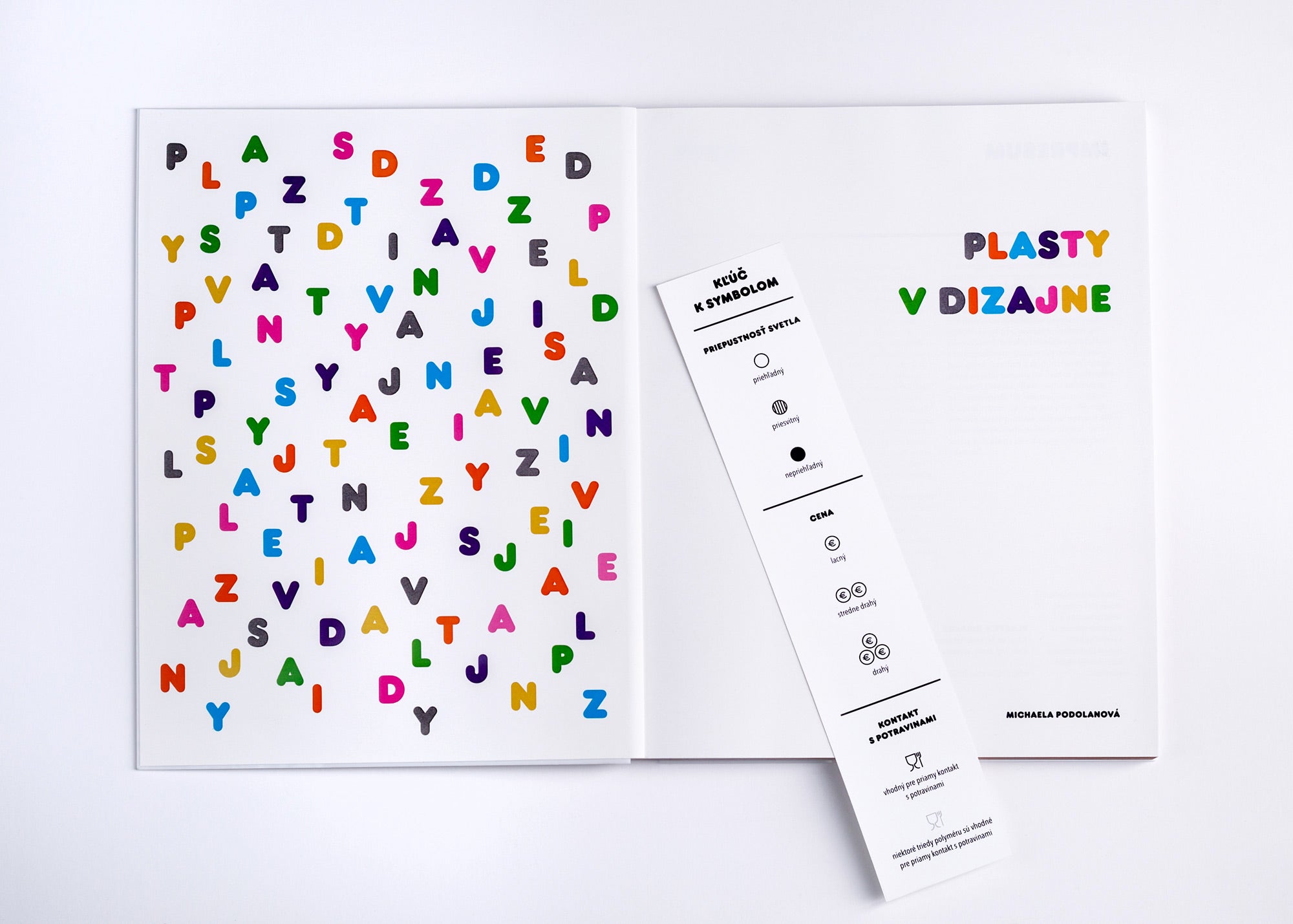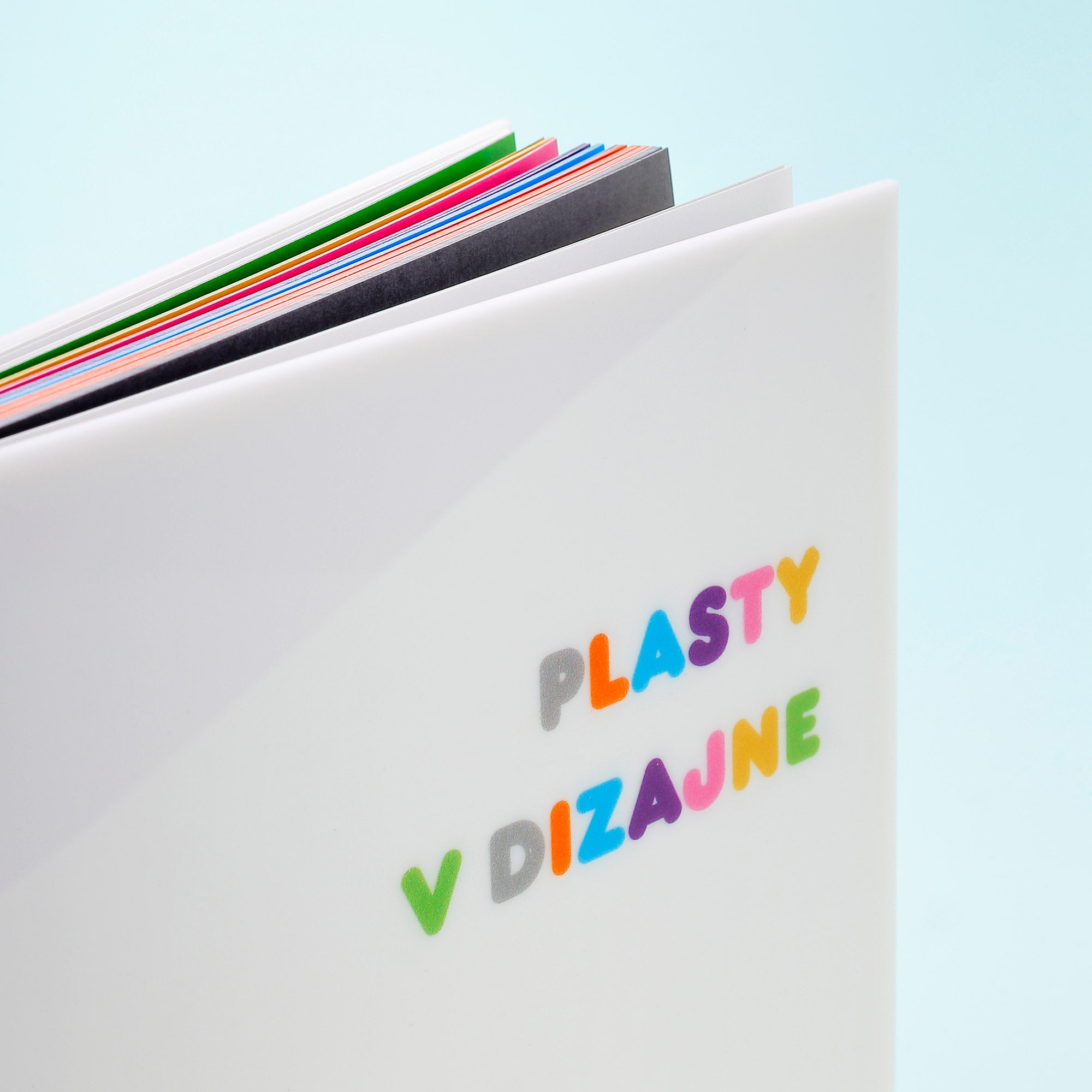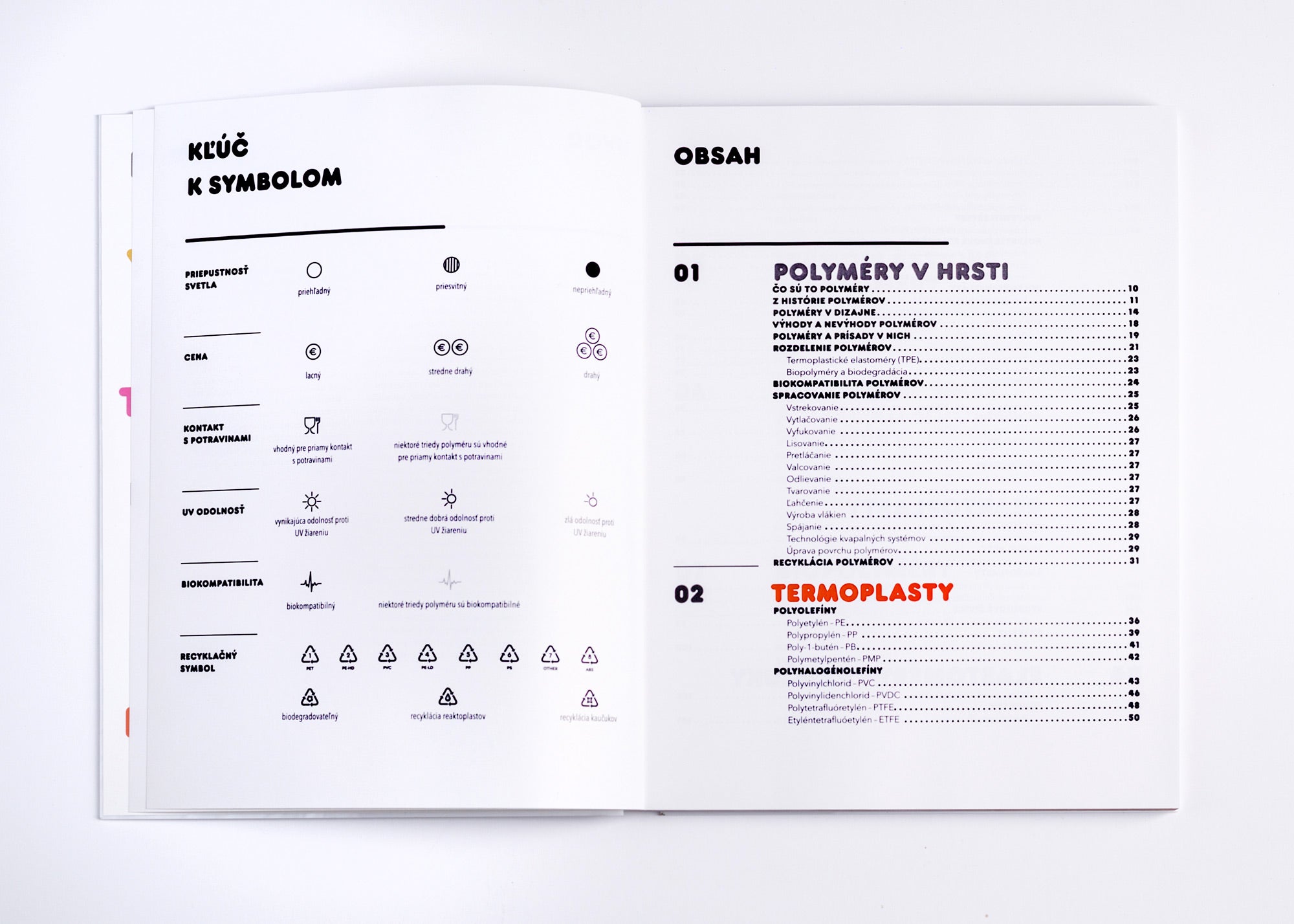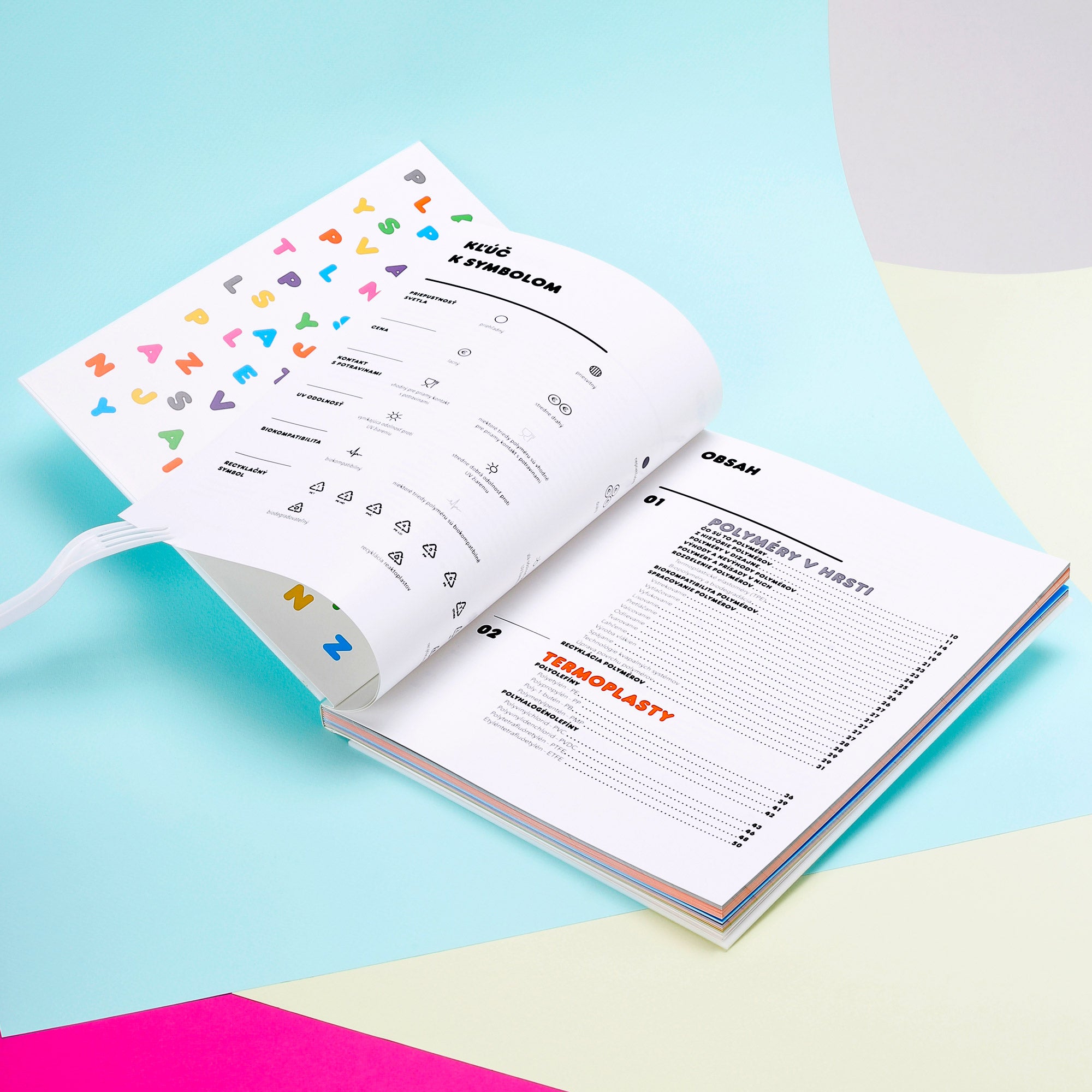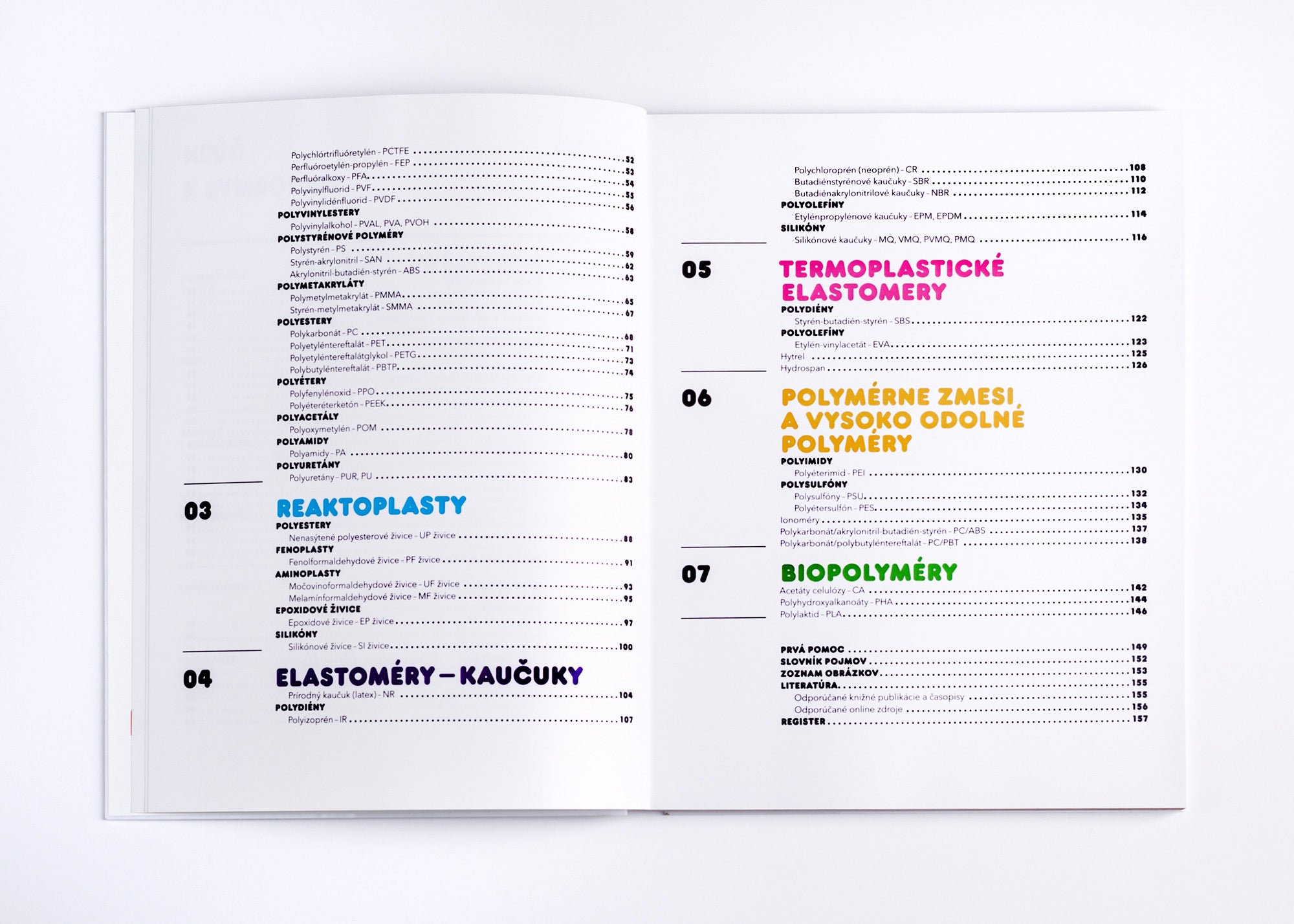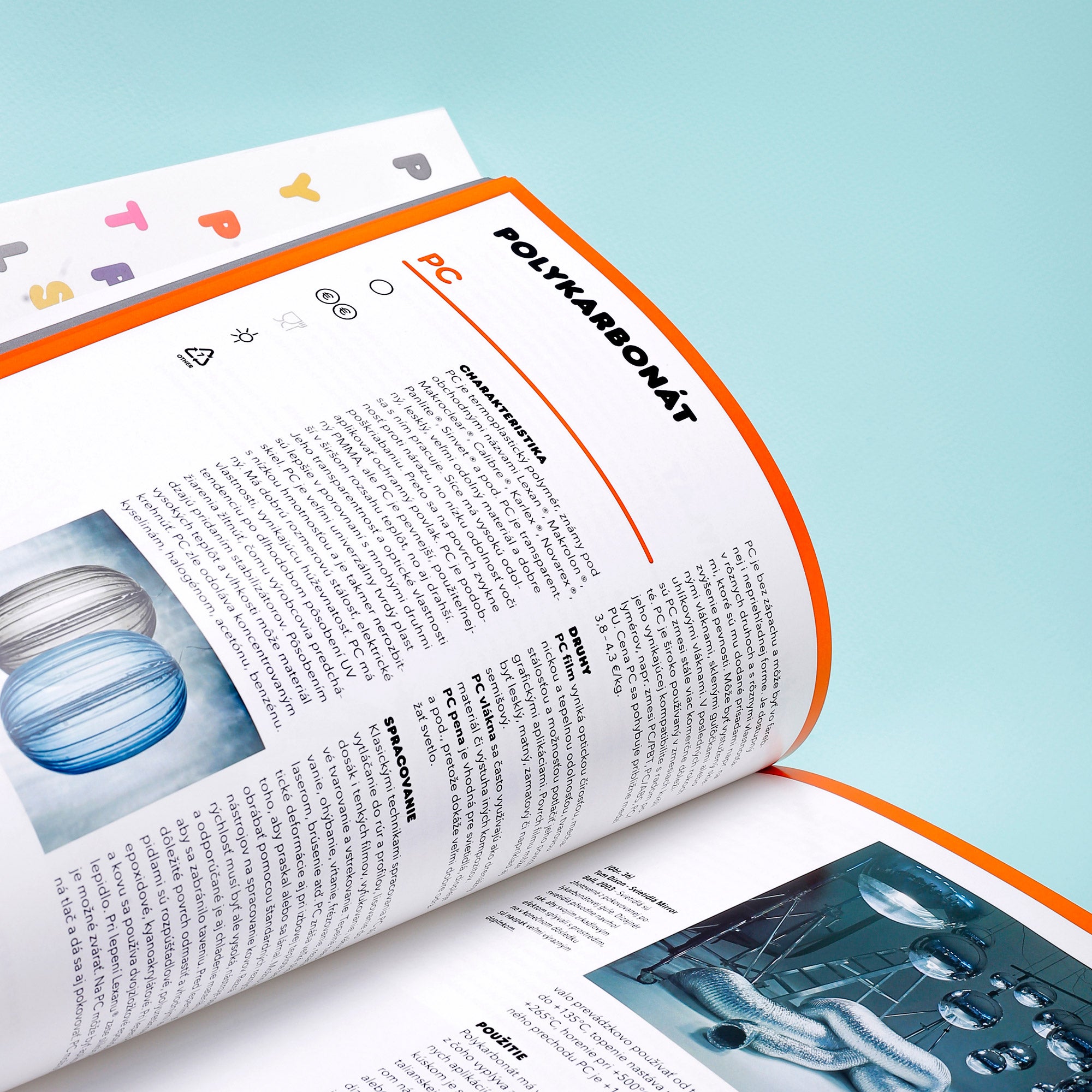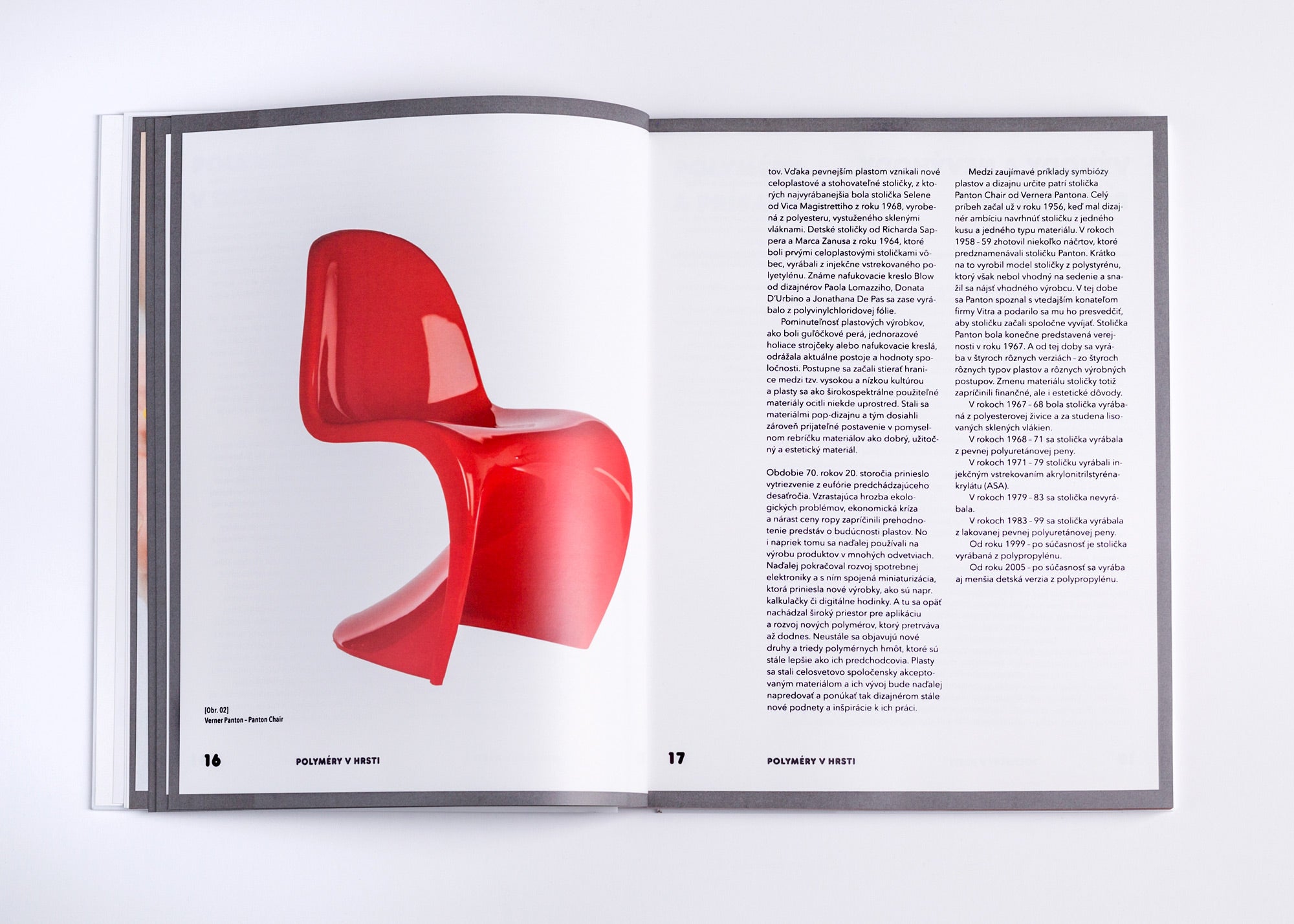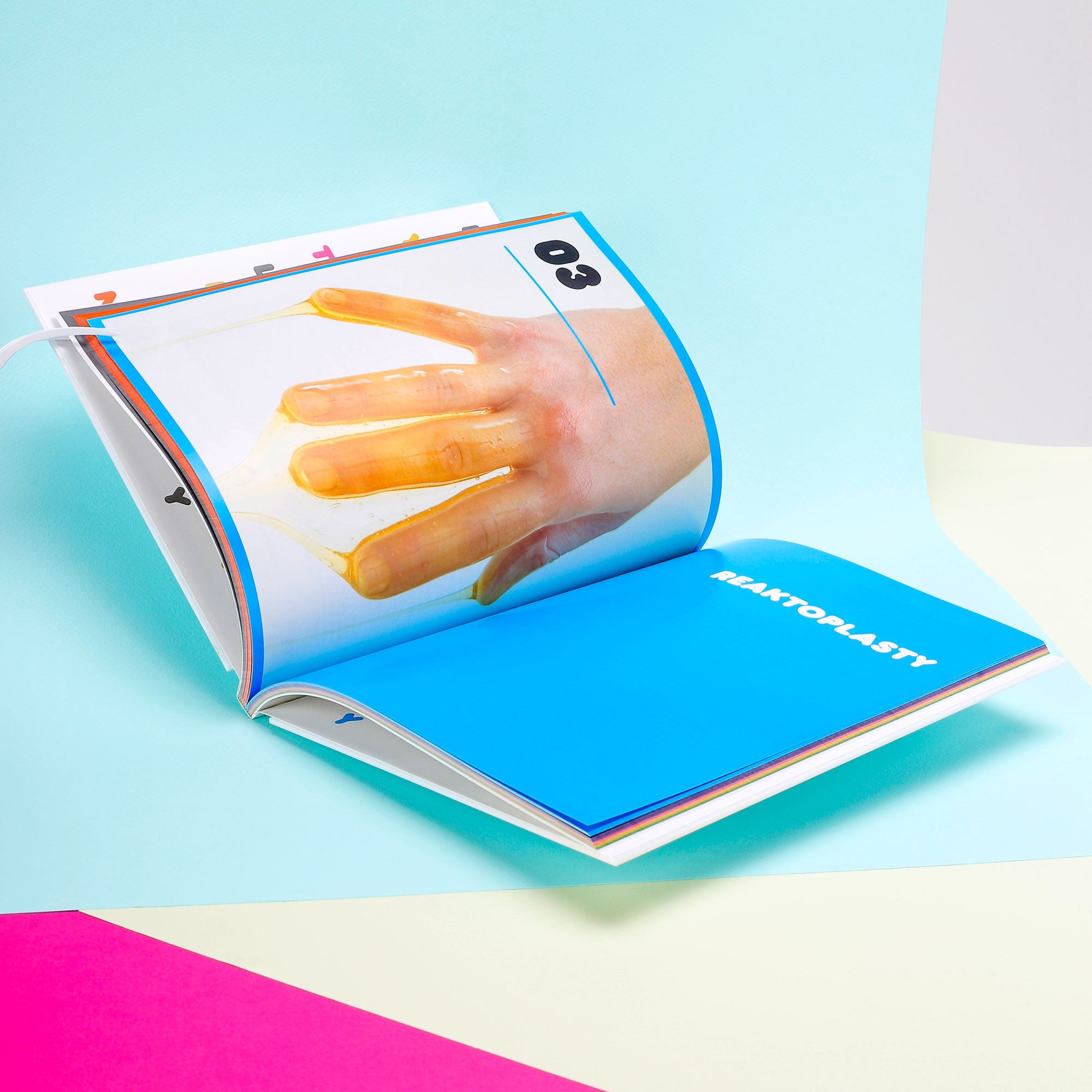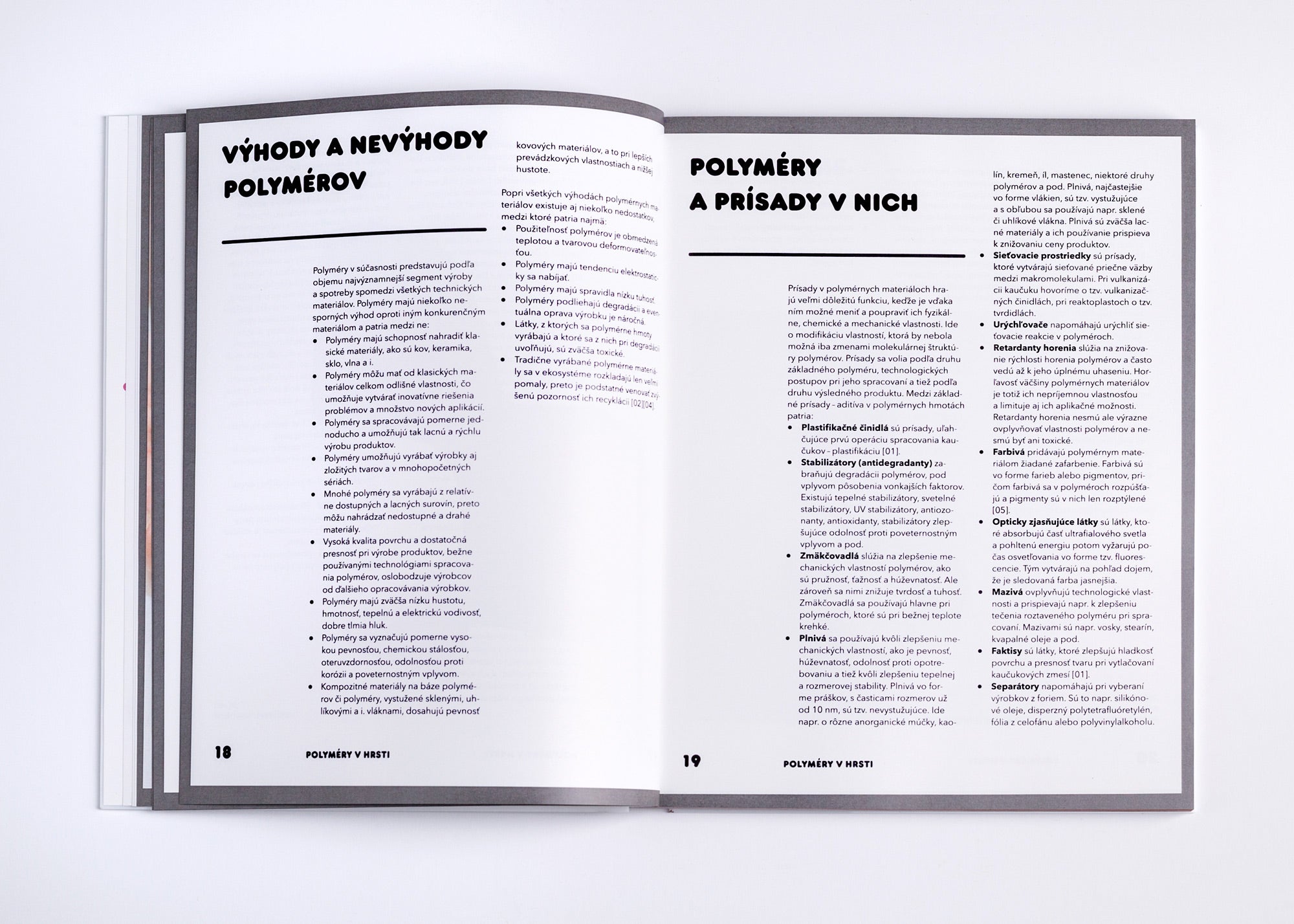
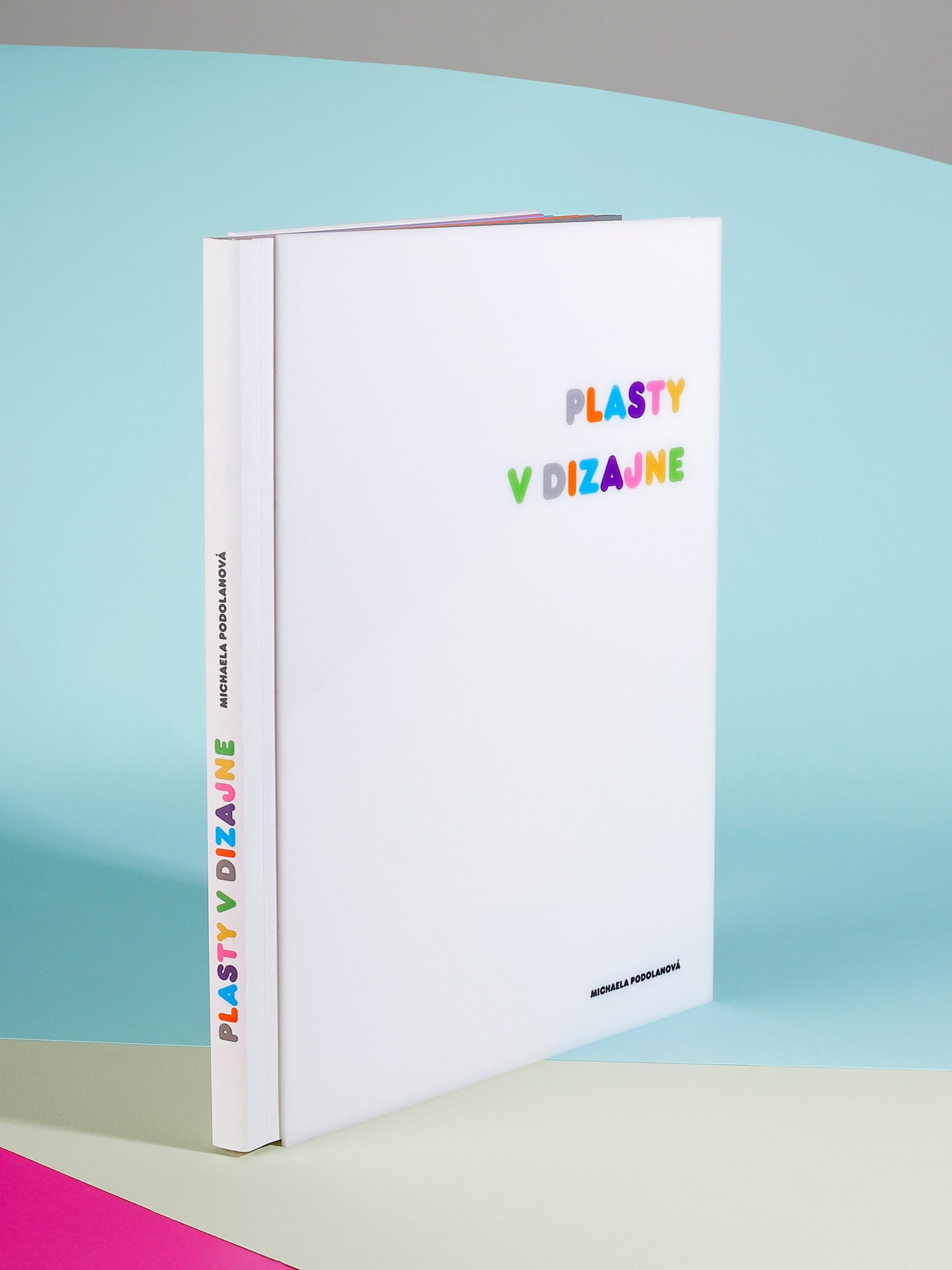
A technical publication does not have to be just a boring textbook. a soft, “plastic” display typeface, bright colours, a well arranged infographic with key at the bookmark, rich pictorial material and a clear layout. The coloured trim of the pages serves a practical purpose besides its visual effect as well — it separates the chapters and therefore it helps the navigation and clarity of the publication. The book about plastics literally asks for glossy, shiny paper and a plastic cover.
Michaela Podolanová: Plasty v dizajne (Plastics in design) • paperback with plastic cover • 200 × 250 × 15 mm • 160 pages • typefaces: Frankfurter, Avenir • published by: TUKE, Košice 2011 • photo credits: Diana Dobrescu • design: © Samuel Čarnoký (2011)